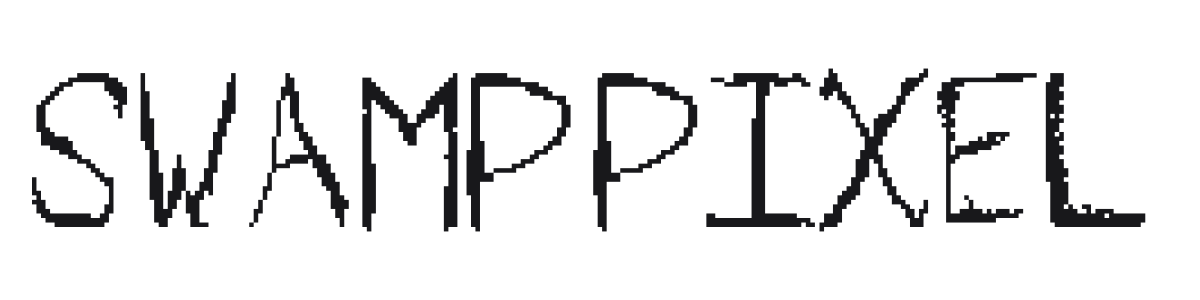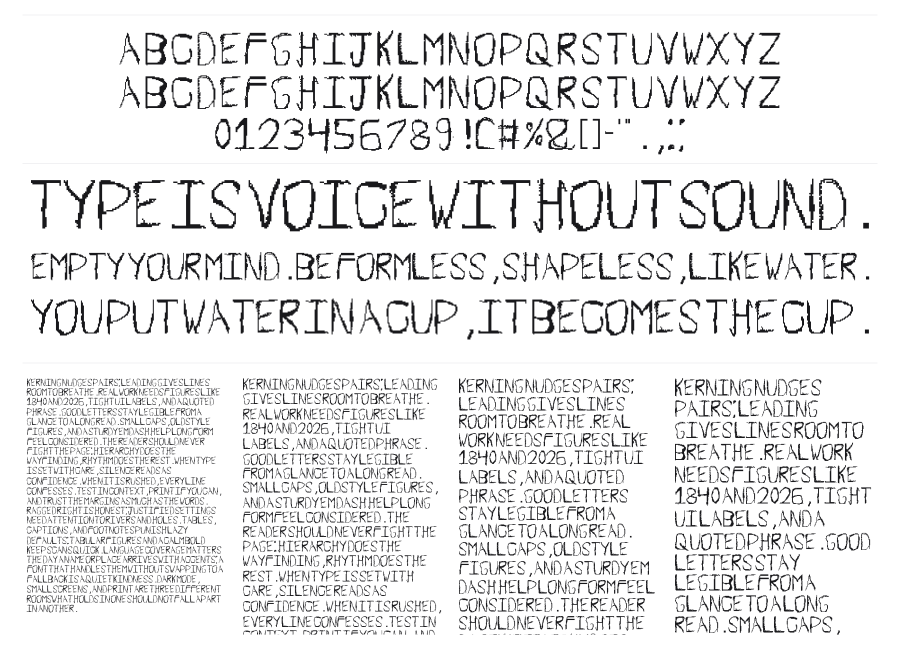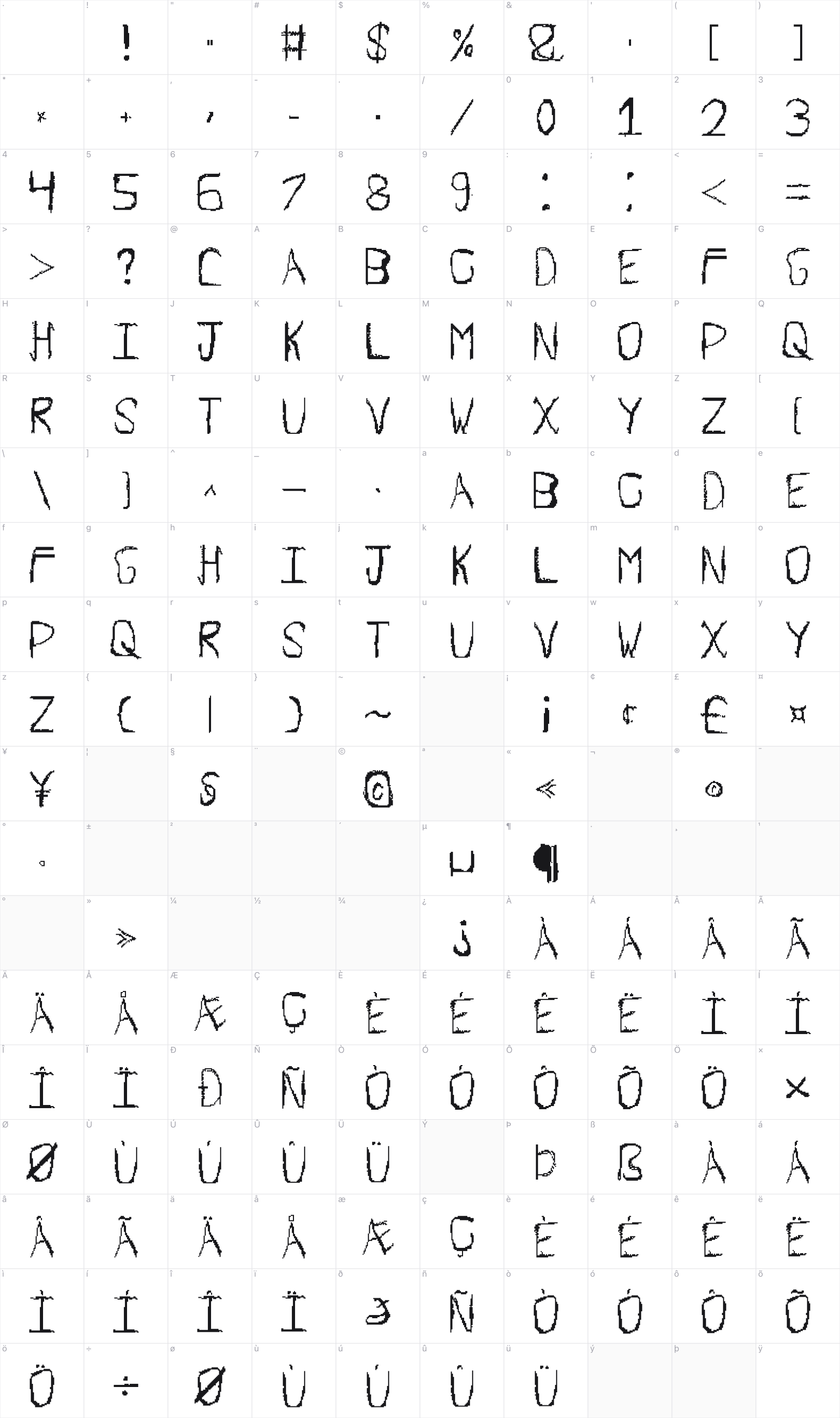
Swamp Pixel
Swamp Pixel is a bitmap display font that wraps classic pixel-grid construction in an organic, swampy texture. Each character is built from visible square pixels but the edges are eroded and irregular, as if the letterforms have been overgrown or left to decay. The result sits somewhere between retro game typography and creature-feature horror.